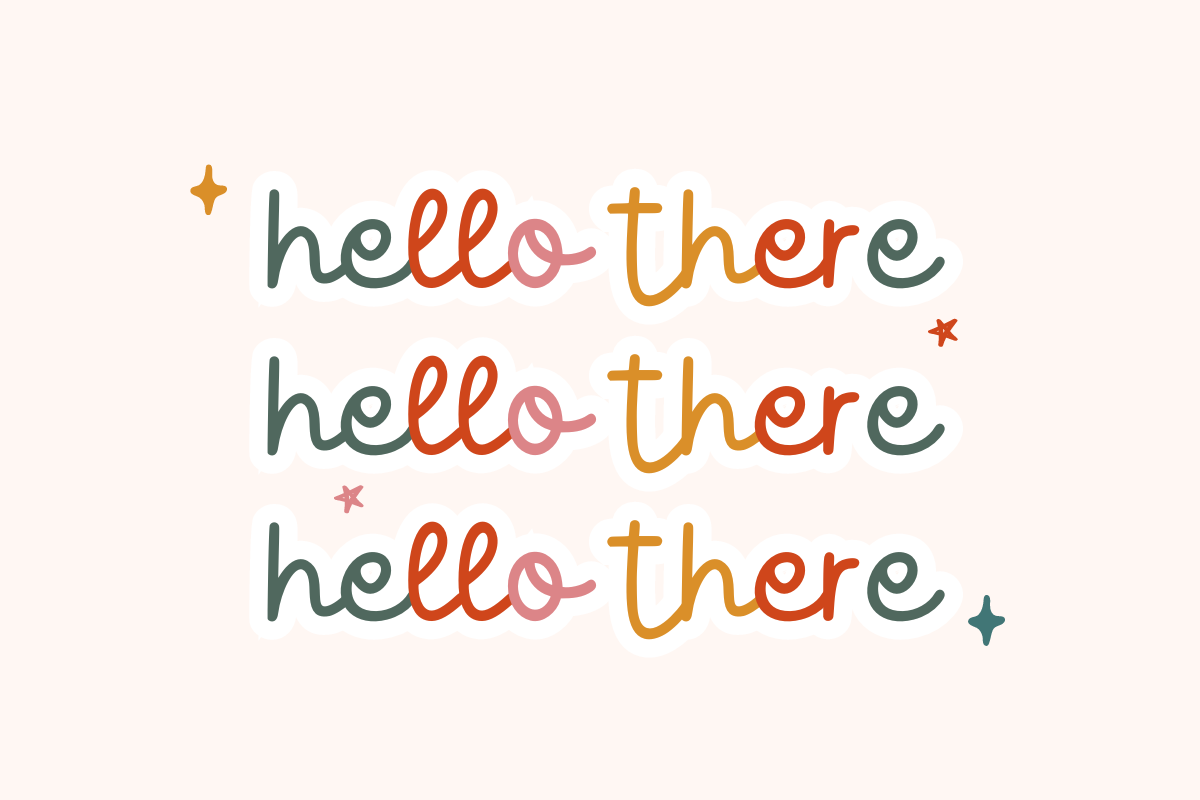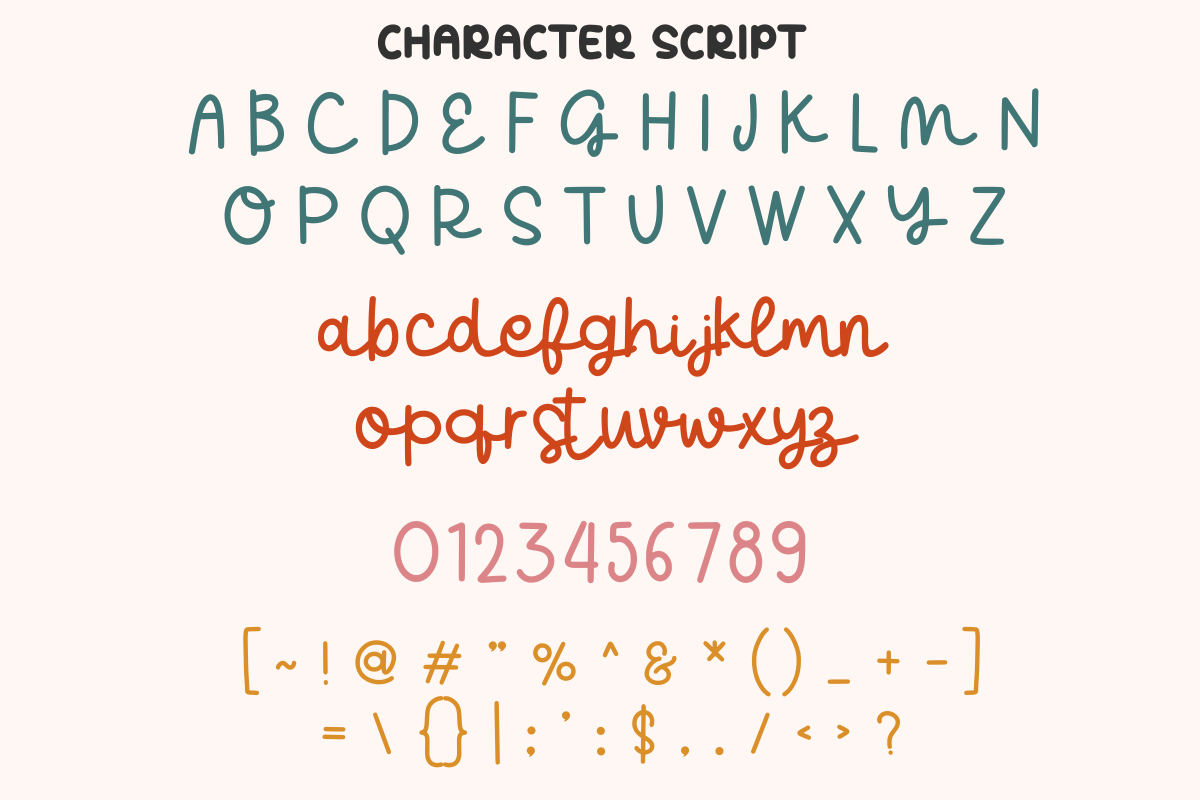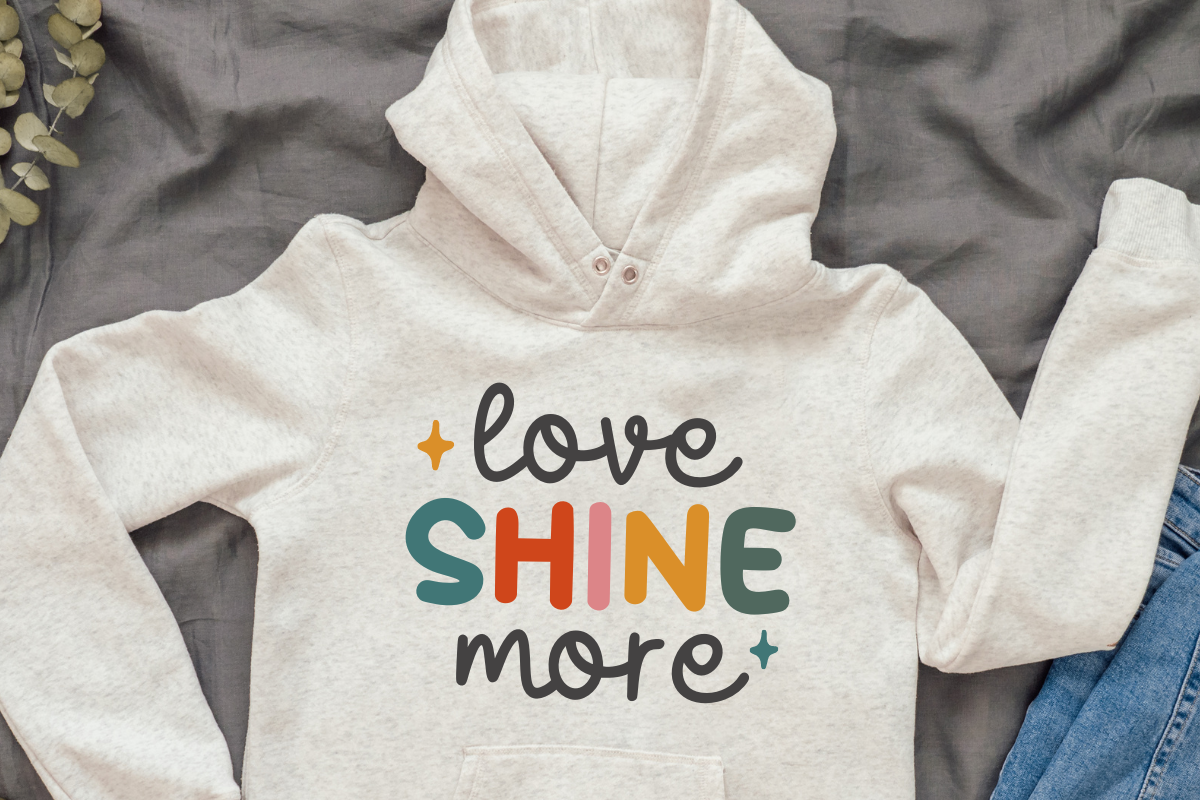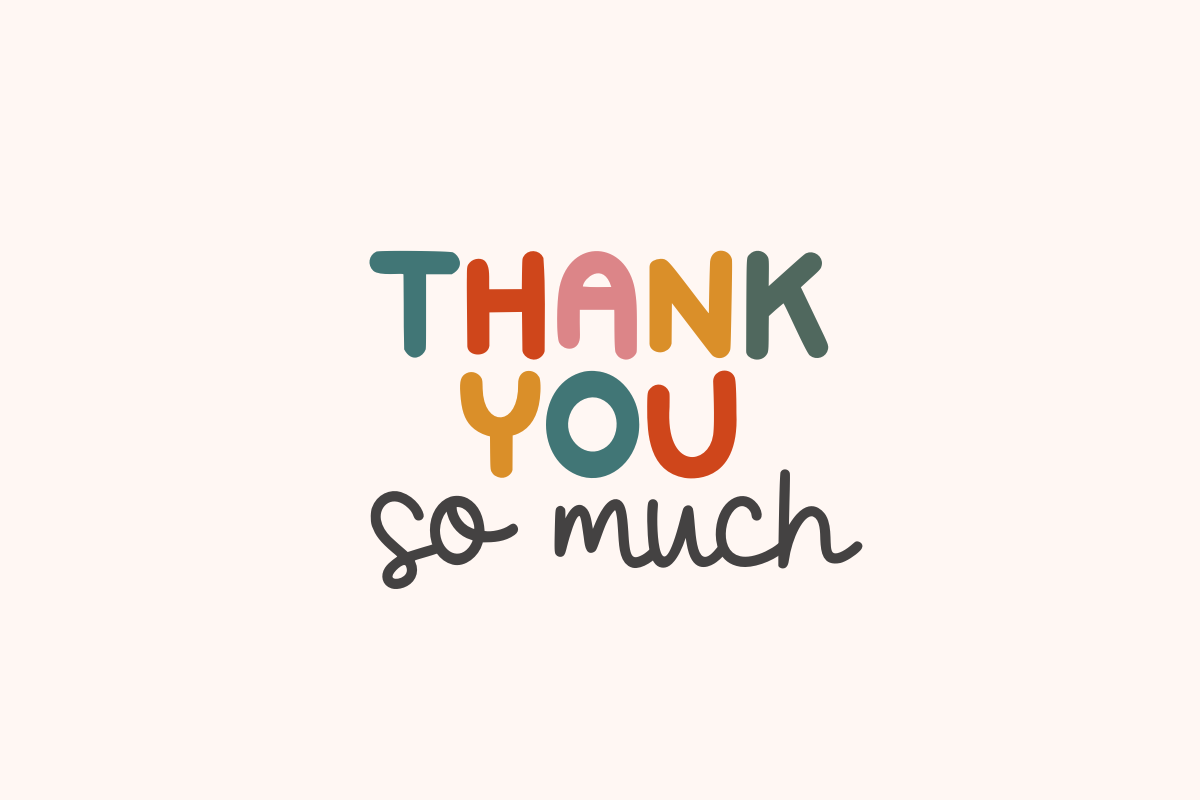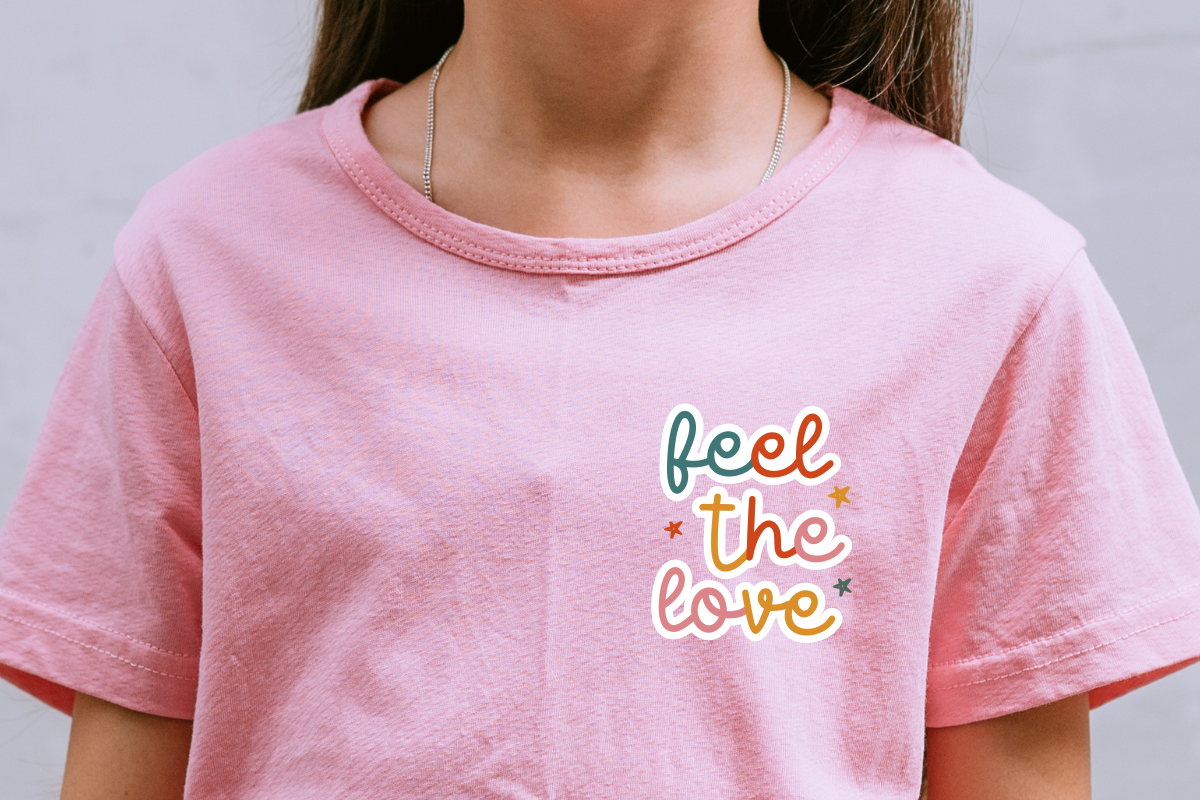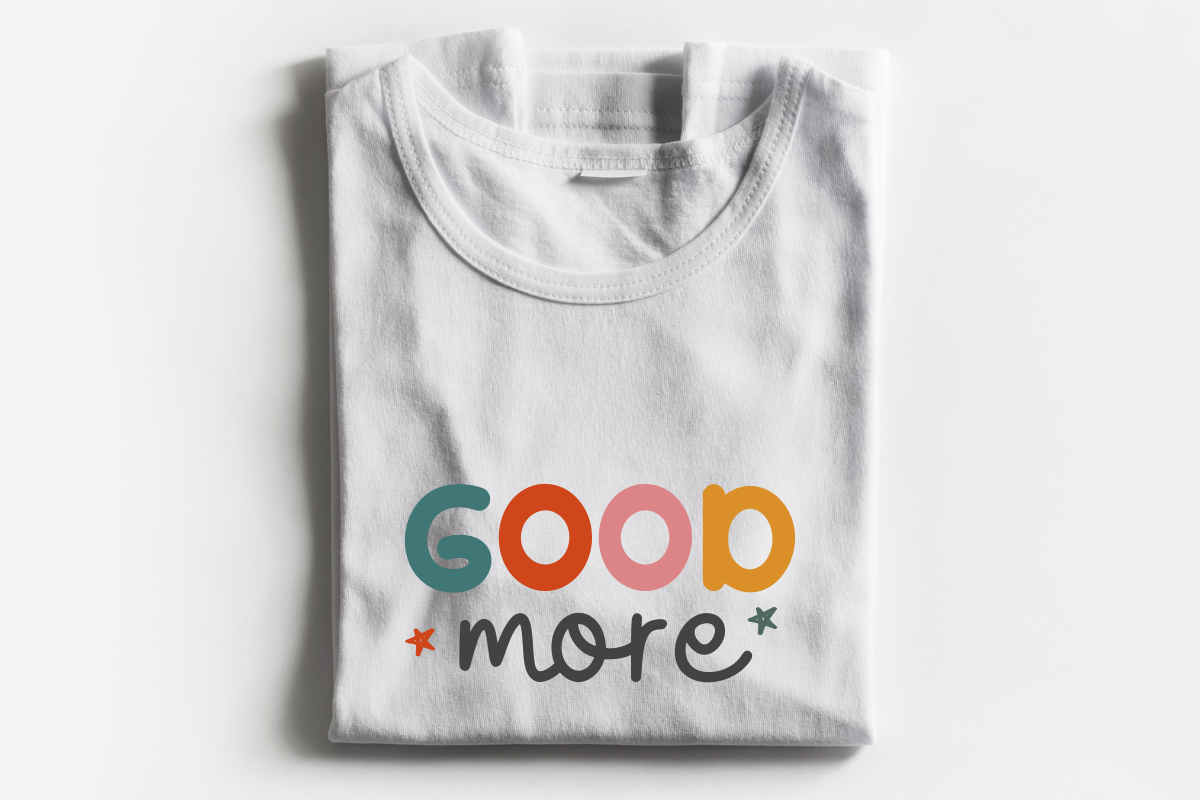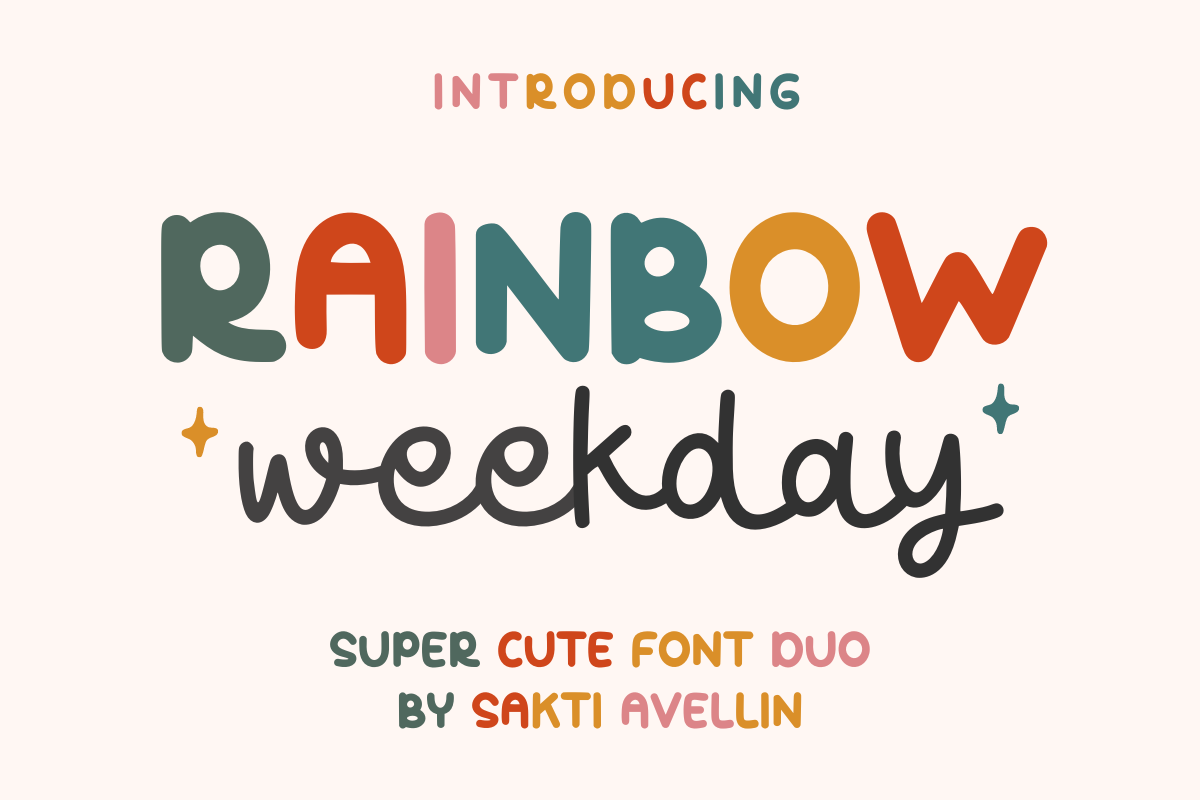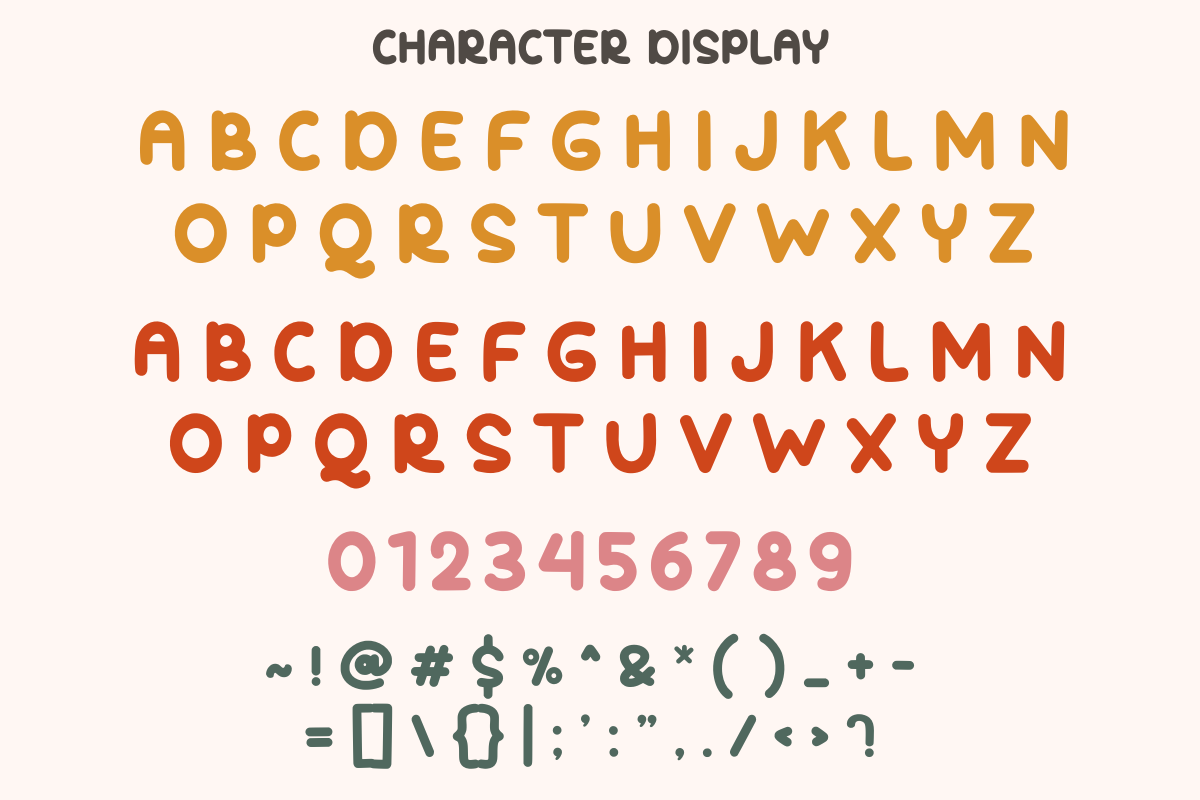
Rainbow Weekday - Cute Font Duo
Rainbow Weekday is a super cute font duo that radiates playful charm and vibrant energy. This versatile pairing combines a bold, chunky display font (sans serif) and a bouncy, handwritten script font, making it an instant favorite for attractive font combinations. It is perfect for cheerful kids' branding, playful nursery decor, impactful T-shirt designs, engaging social media graphics, and lively party invitations. This modern typeface offers fantastic readability and a joyful aesthetic, making it an essential creative font for designers and crafters. Bring the happiness of a rainbow to your work with this delightful font duo!